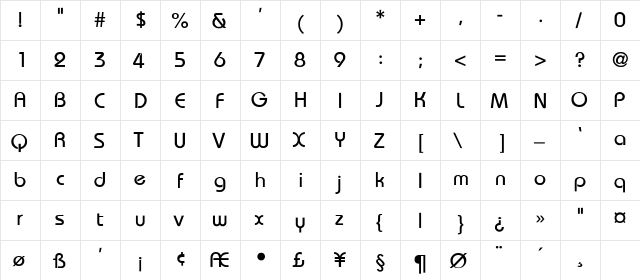
Steff Thin Regular Font Preview
Steff Thin Regular
Design Context for Steff Thin Typeface
Steff Thin offers clean, dependable letterforms without strong stylistic allegiance, making it a practical choice for designers who need flexibility. Its slender proportions lend an understated elegance to any composition.